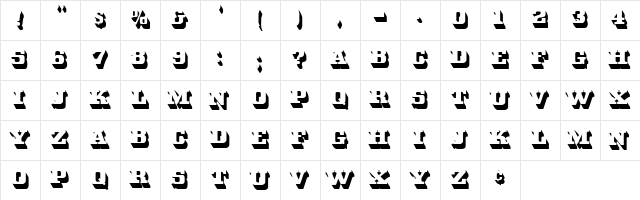
White Bold
Design Context for White Typeface
White is a composed and adaptable typeface that performs quietly and consistently across a wide range of design contexts. The heavy weight commands attention and anchors typographic hierarchies.